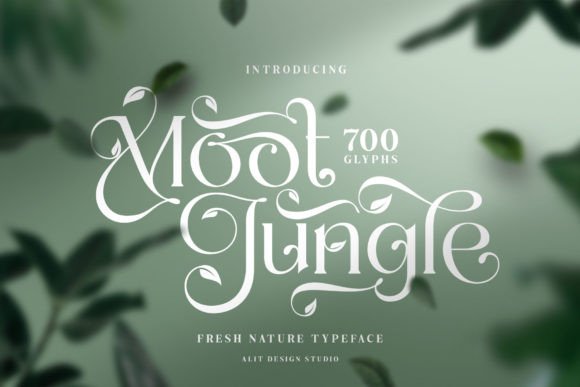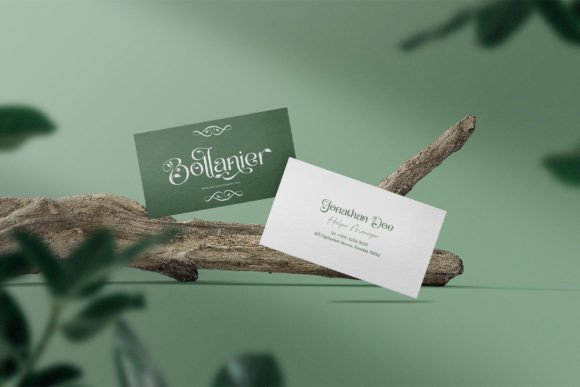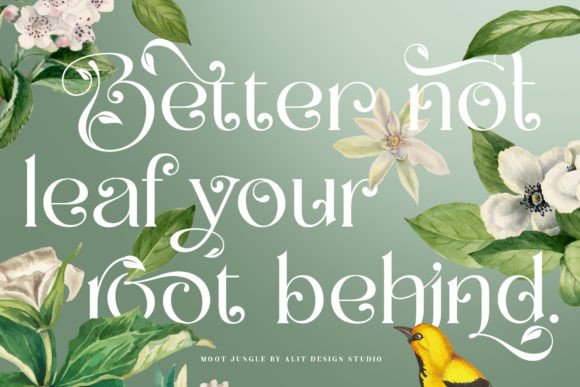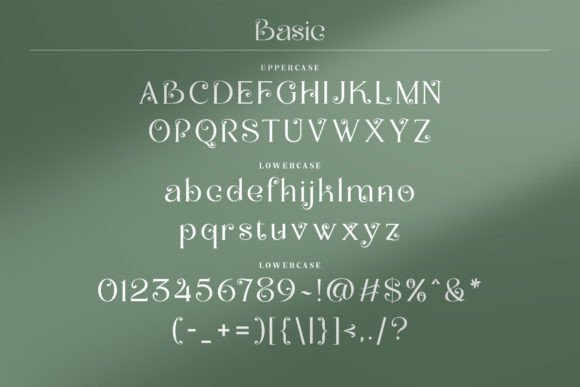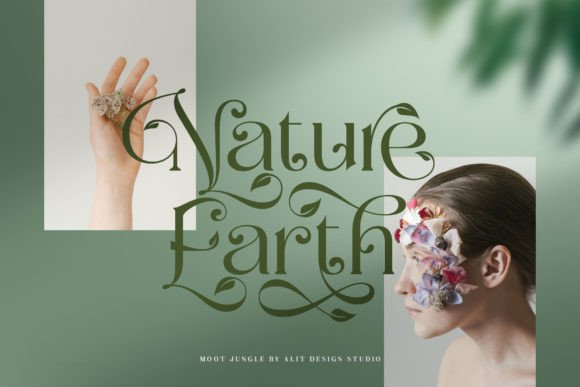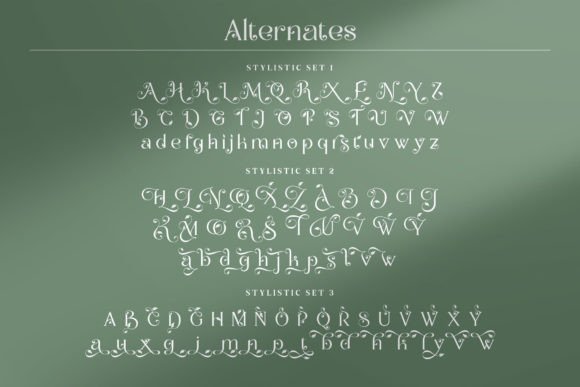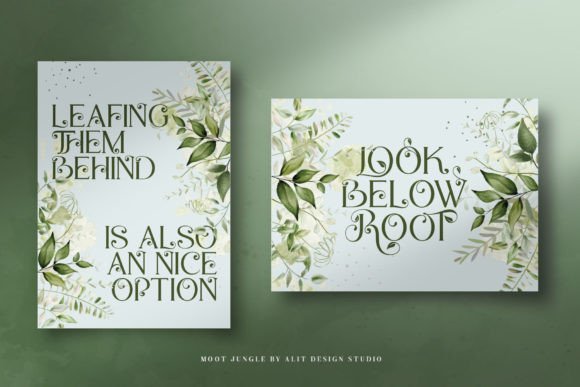
Moot Jungle Font
Moot Jungle is an elegant serif font with a natural twist. Inspired by the beauty of nature, this font features a stunning swash of leaves that adds a touch of sophistication to any design. Whether you’re creating a logo, invitations, or other design projects, this font is sure to make a lasting impression. This font is PUA encoded which means you can access all glyphs and swashes effortlessly!